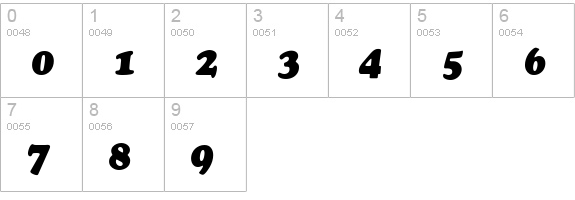
Cooper SSi Black Italic is a maximum-weight, dramatic, italic variant in the Cooper typeface family \xE2\x80\x94 well suited to maximum-impact headlines, posters, and packaging.
Cooper SSi Black Italic font is a stylish and modern typeface that adds a touch of sophistication to any design project. With its sleek and elegant design, this font is perfect for creating eye-catching headlines, titles, and logos. The bold and italicized characters make a strong statement, while still maintaining a sense of elegance and finesse. What makes Cooper SSi Black Italic font even more appealing is that it is available for free download at FontsMarket.com. This means you can easily access this high-quality font without any cost, making it a valuable addition to your font collection. Whether you're working on a branding project, a website design, or any other creative endeavor, Cooper SSi Black Italic font is sure to elevate your work and leave a lasting impression. Download it today and take your designs to the next level!